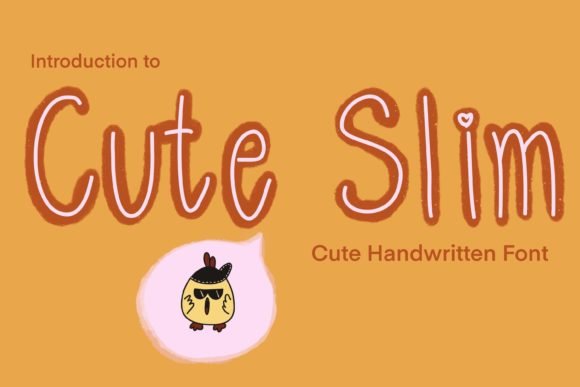
Cute Slim Font – Free Download
Introduction to Cute Slim Font
Cute Slim is a thin and friendly handwritten font.
No matter the topic, this font will be an incredibly asset to your fonts’ library, as it has the potential to elevate any creation .
Key Features of Cute Slim Font
Why Choose Cute Slim Font?
Cute Slim Font offers exceptional quality and versatility, making it a valuable addition to your design toolkit. Whether you’re creating for personal projects or commercial use, Cute Slim Font delivers professional results.